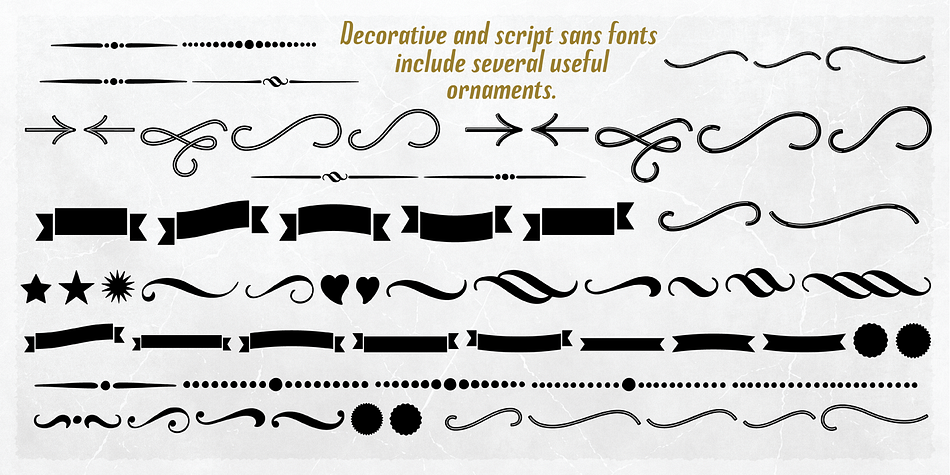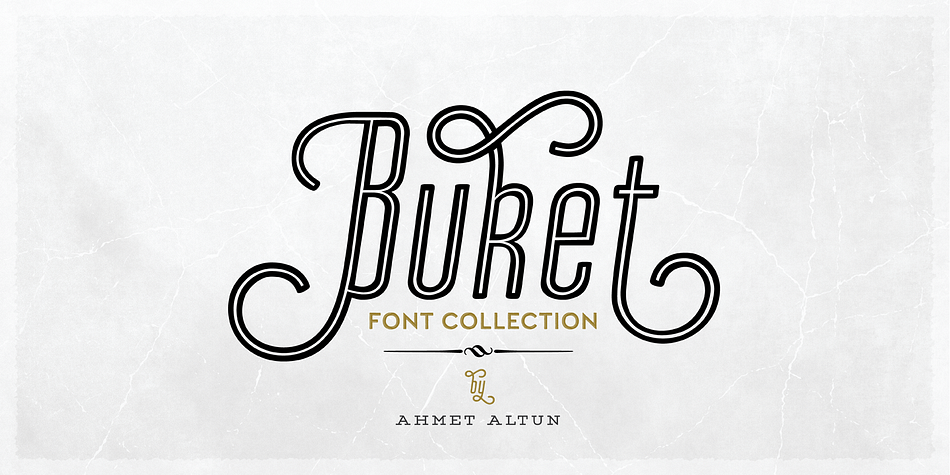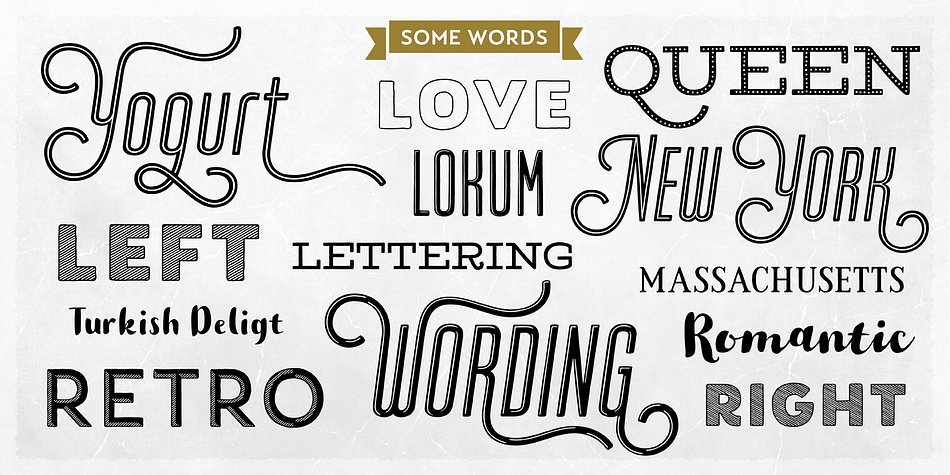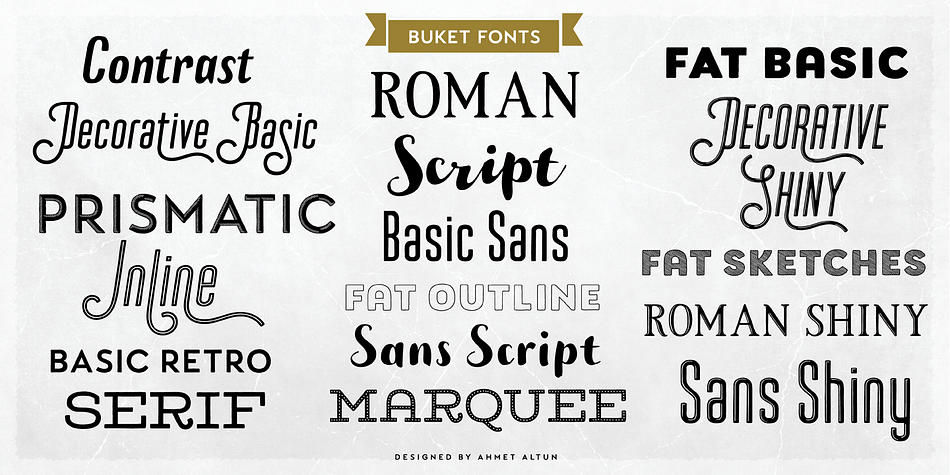
Designed by Ahmet Altun, Buket is a multiple classification font family. This typeface has eighteen styles and was published by Ahmet Altun.
Bouquet or in Turkish, Buket Font Collection includes 18 styles and textures which are different but compatible with each other. Decorative and script sans fonts include several useful ornaments. It can be created elegant and decorative typographic designs and additionally, eye-pleasing designs can be made even in minuscule texts.
Styles | Brush Script, Display Sans, Display Serif, Display Slab |
Designer | Ahmet Altun |